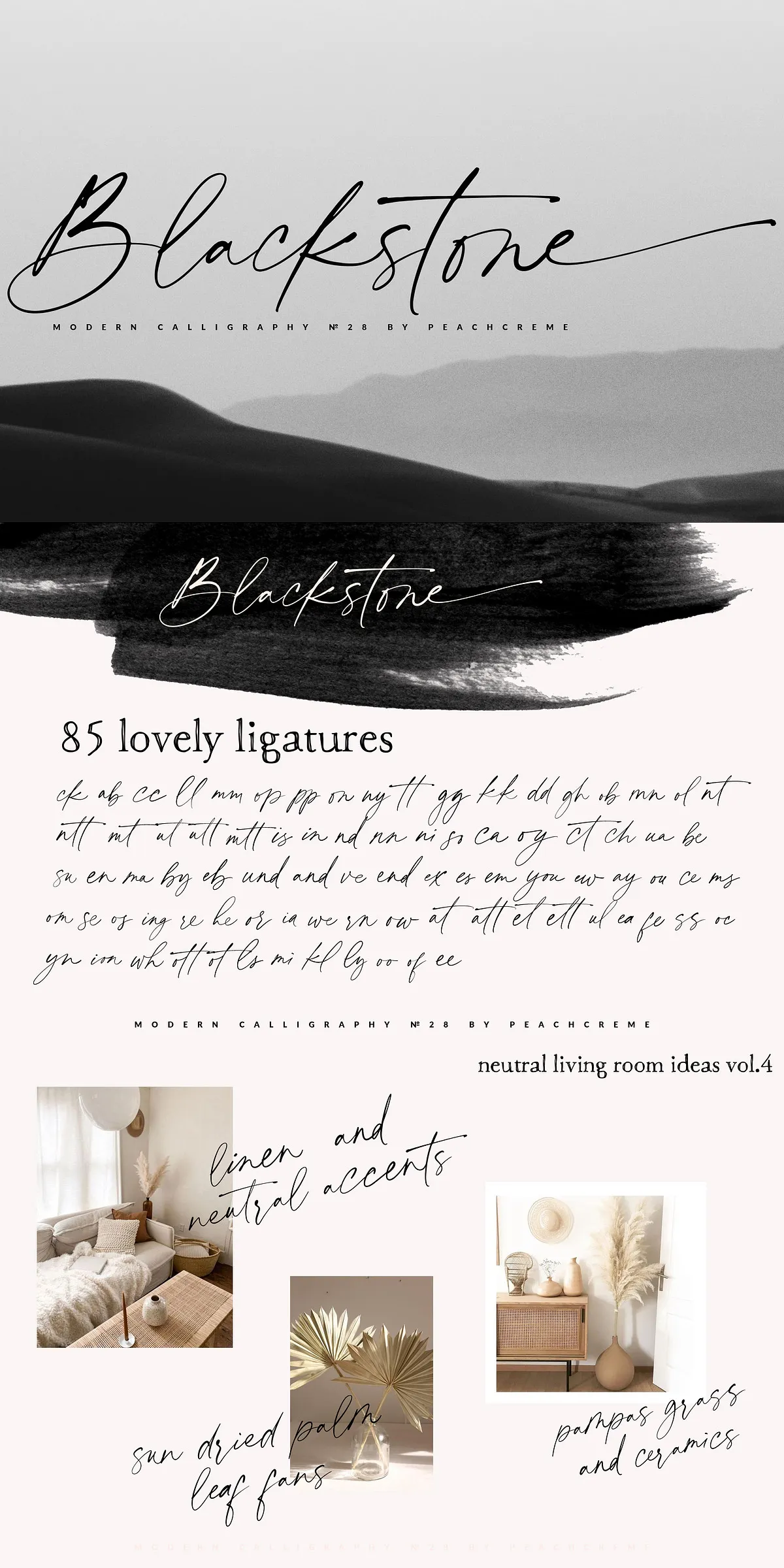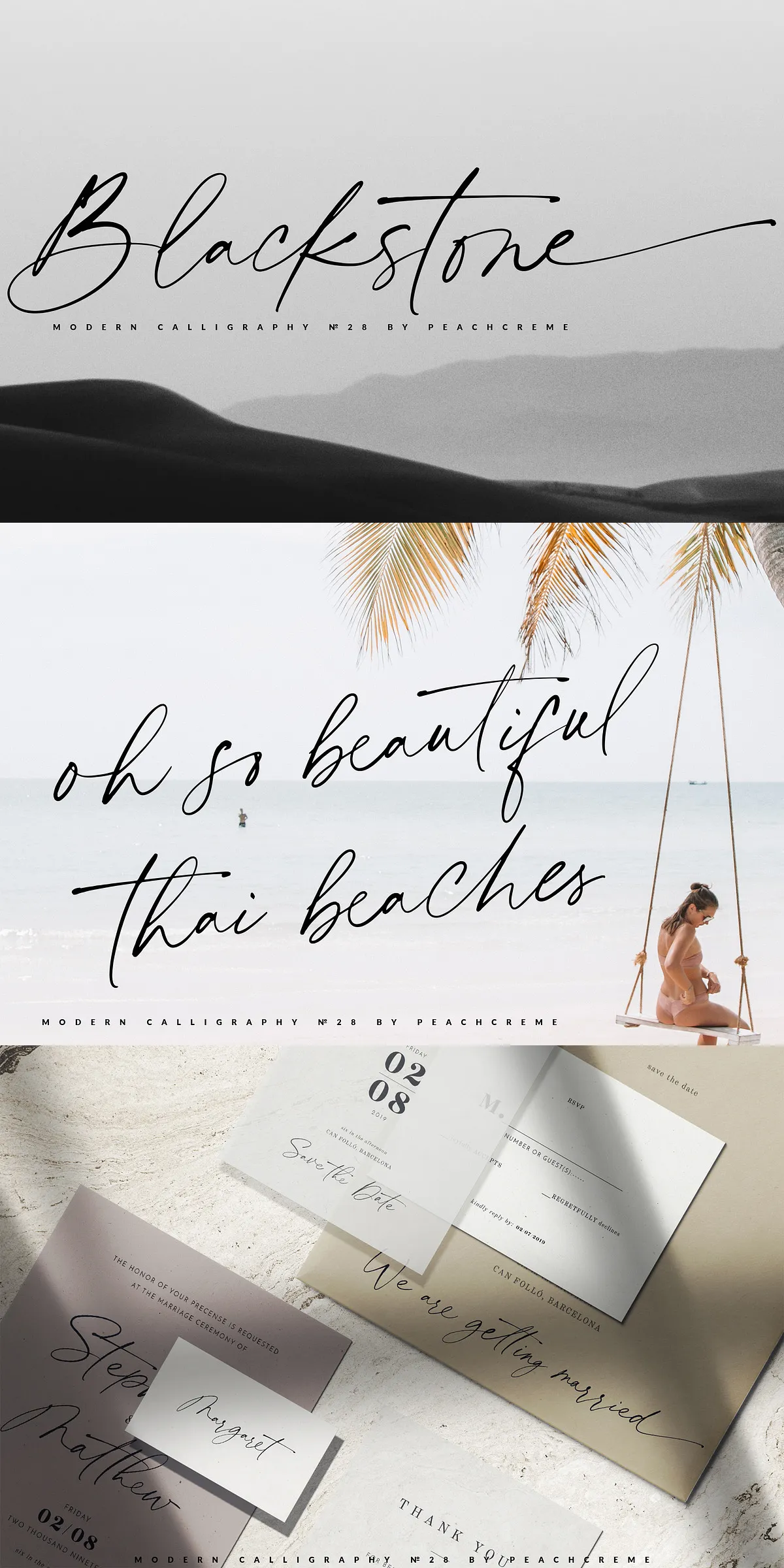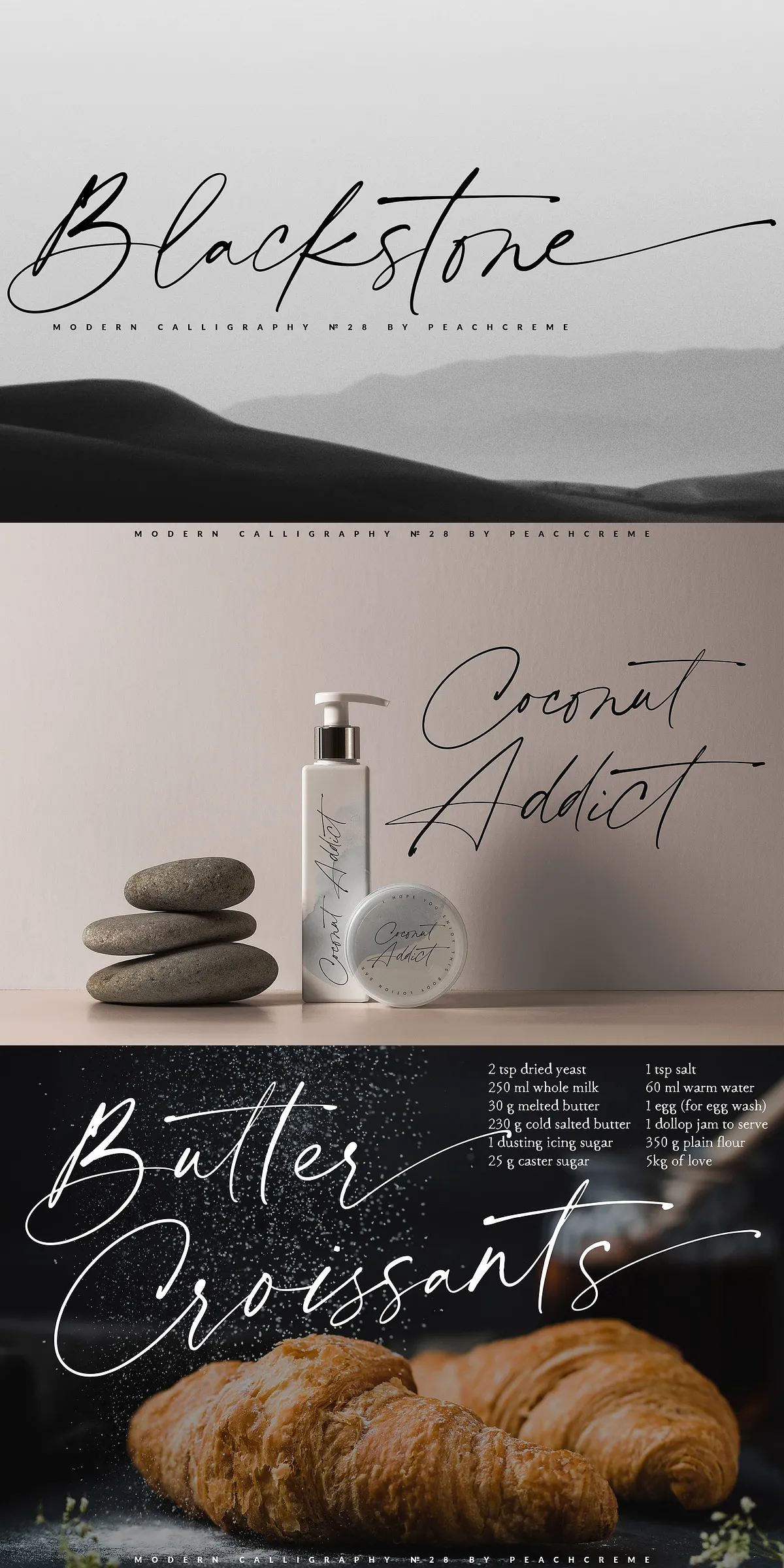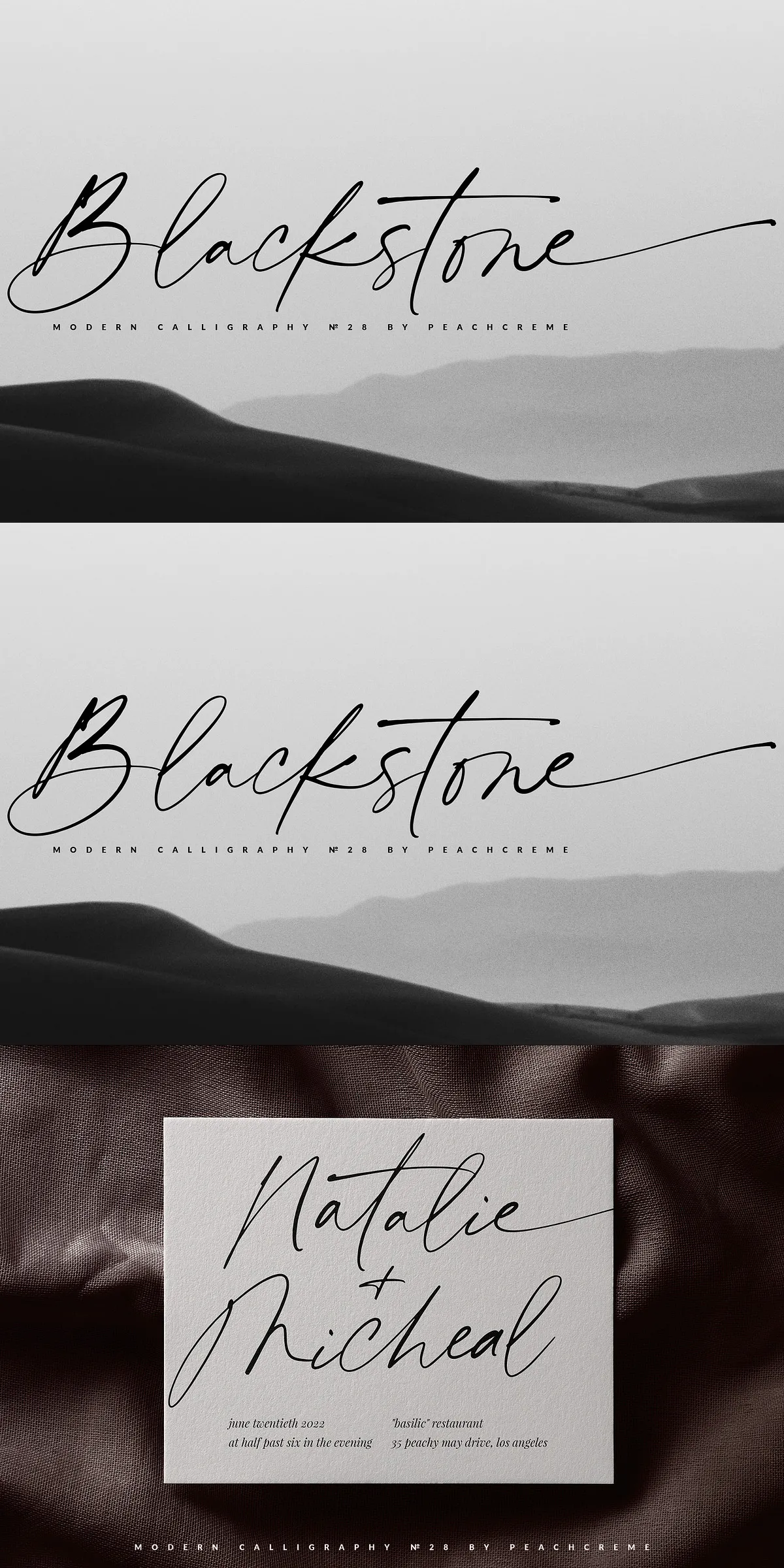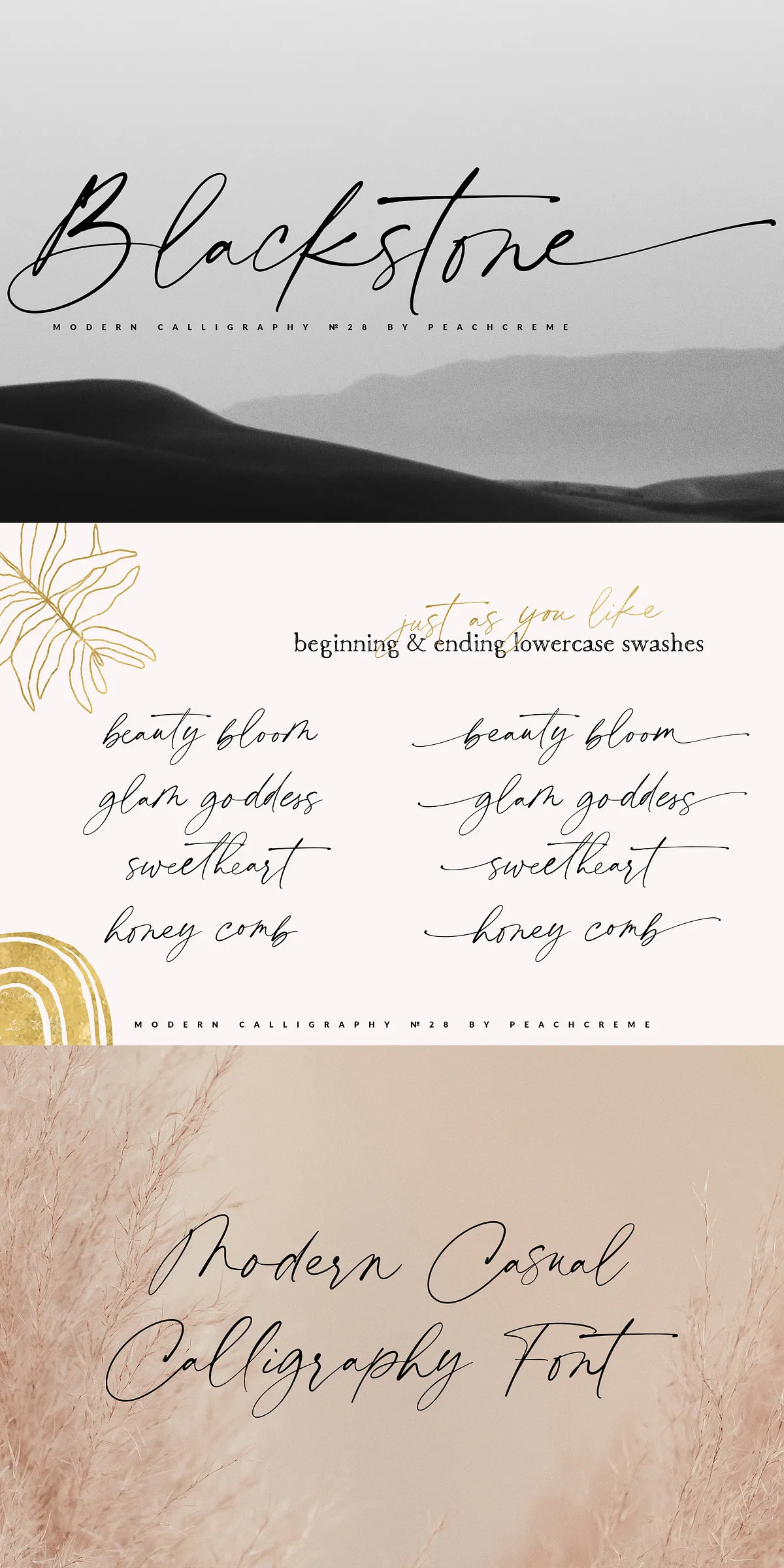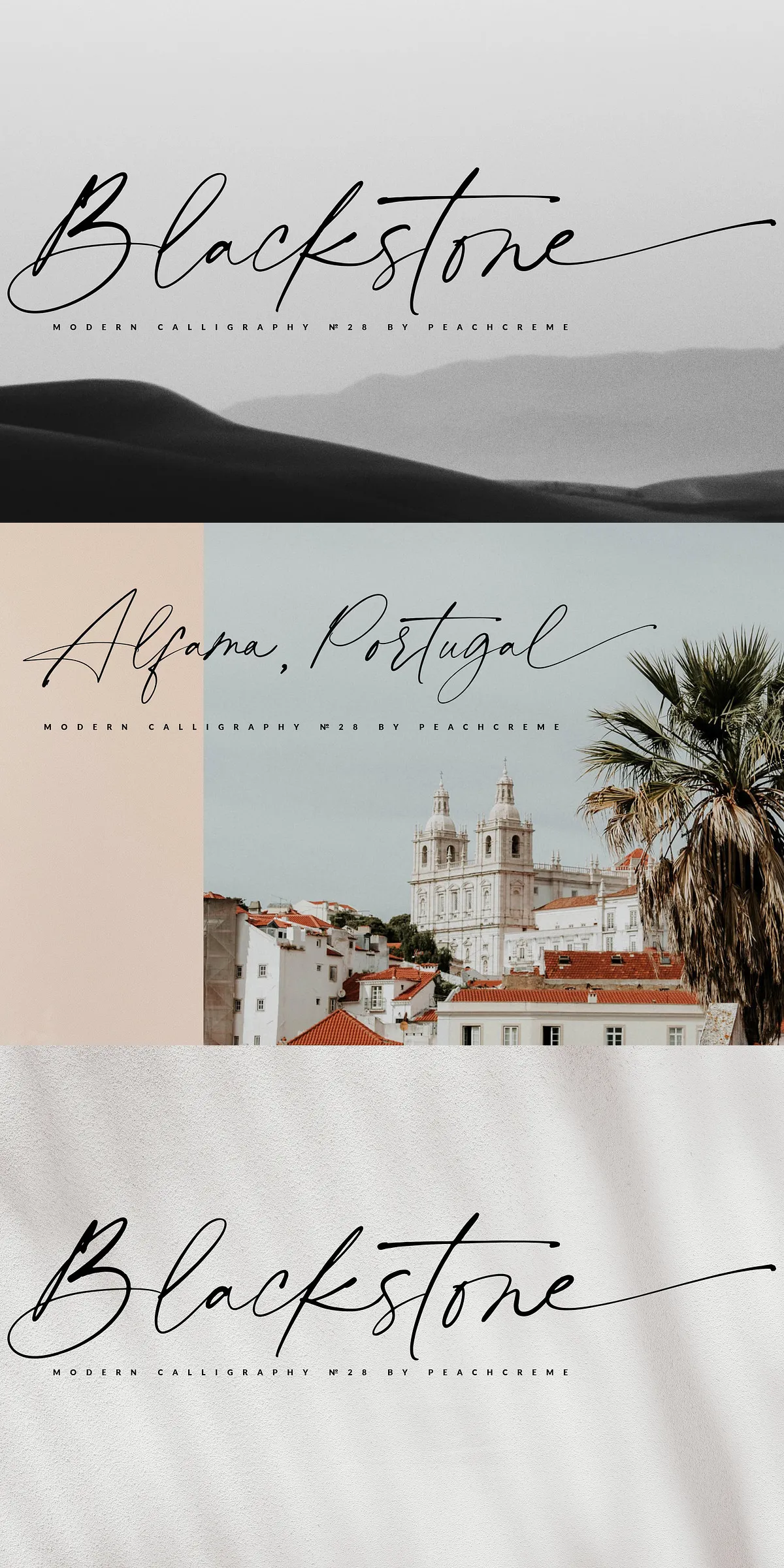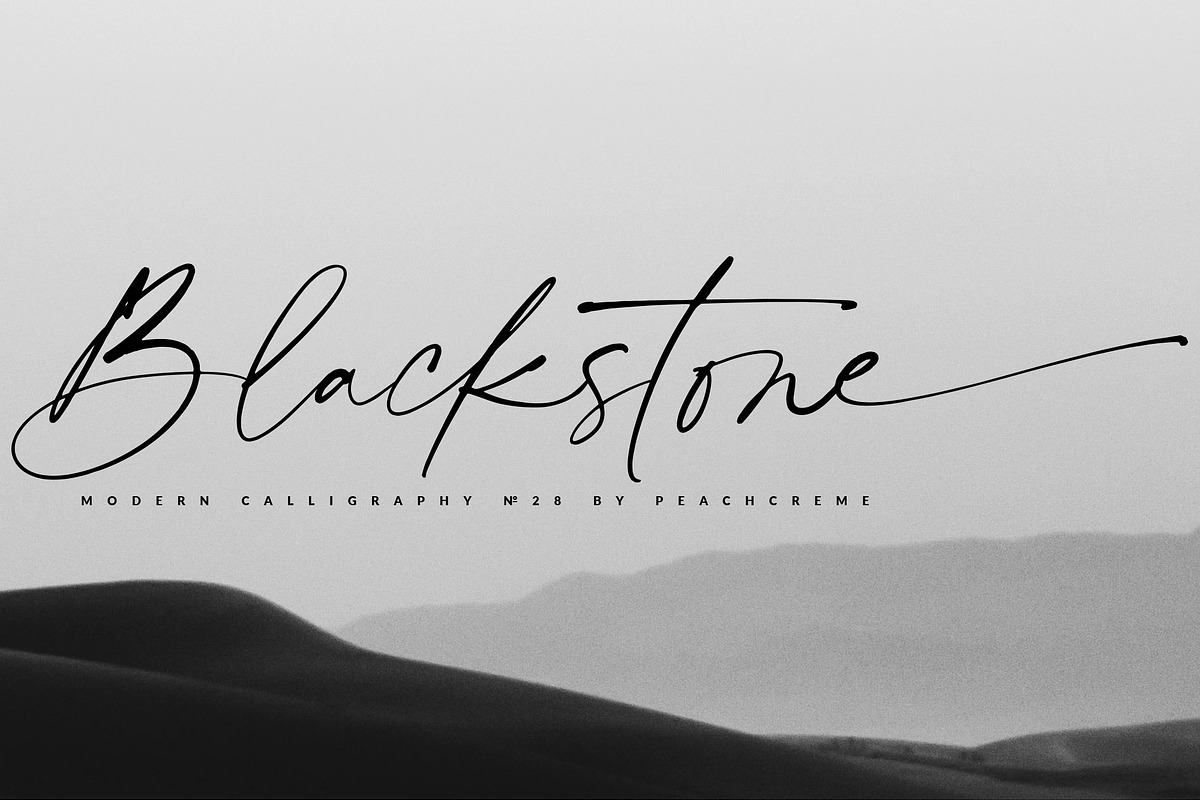
Step into the world of refined sophistication with Blackstone, a striking modern calligraphy font that blends effortless grace with high-impact design. Designed for creators who appreciate the balance between artistry and precision, Blackstone delivers an authentic hand-lettered feel with a contemporary edge. Whether you’re crafting luxury invitations, building a high-end brand identity, or designing elegant packaging for premium products like red wine labels, this font brings instant class, warmth, and timeless appeal to every project.
Elevate Your Design with Authentic Hand-Lettered Realism
Blackstone is not just a font—it’s a design statement. Every character is meticulously crafted to mimic the natural flow of a brush or nib, giving your work a lifelike, artisanal quality. The inclusion of beginning and ending swashes on all lowercase letters ensures that your typography feels alive, organic, and professionally expressive—perfect for clients who demand originality and emotional depth in their visual language.
• Full character set — Complete uppercase and lowercase letters, numerals, punctuation marks, and special symbols for versatile use.
• 85 professionally designed ligatures — Create seamless, fluid text with elegant character combinations that enhance readability and visual rhythm.
• High-resolution glyphs — Crisp lines at any size, from delicate wedding card text to large-format signage and branding displays.
Why Blackstone Stands Out in Luxury Typography
In a crowded market of generic fonts, Blackstone rises above with a unique personality—sophisticated yet approachable, bold yet refined. Its casual chic flair makes it ideal for projects that seek emotional resonance and aesthetic distinction:
• Wedding invitations and thank-you cards — Create heirloom-quality stationery that feels deeply personal and beautifully crafted.
• Luxury branding and packaging — Build strong visual identities for high-end fashion, beauty, and lifestyle brands.
• Red wine and spirits labels — Add an air of elegance and tradition to premium beverage packaging.
• Editorial layouts and premium magazines — Use for headlines, pull quotes, and featured sections that demand attention.
• Custom logos and brand mark elements — Develop unique, memorable symbols that reflect sophistication and style.
Design with Intent. Create with Confidence.
Blackstone isn’t just a tool—it’s a creative partner. It empowers designers to move beyond basic typography and craft experiences that feel personal, intentional, and deeply memorable. With its balance of elegance and modernity, it’s built not just to impress, but to endure.